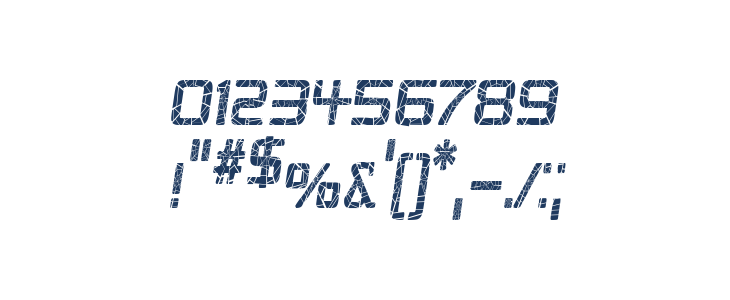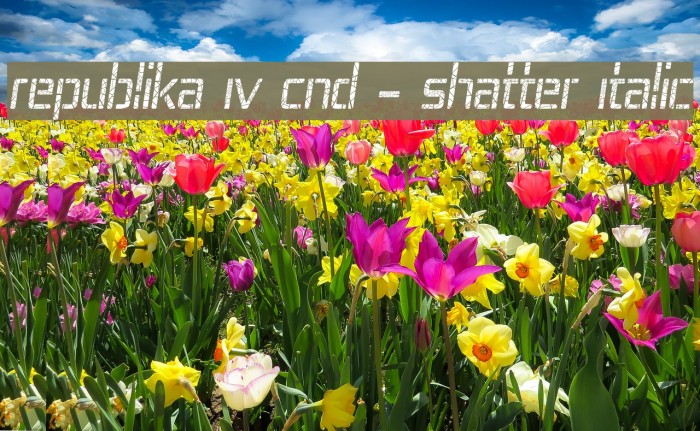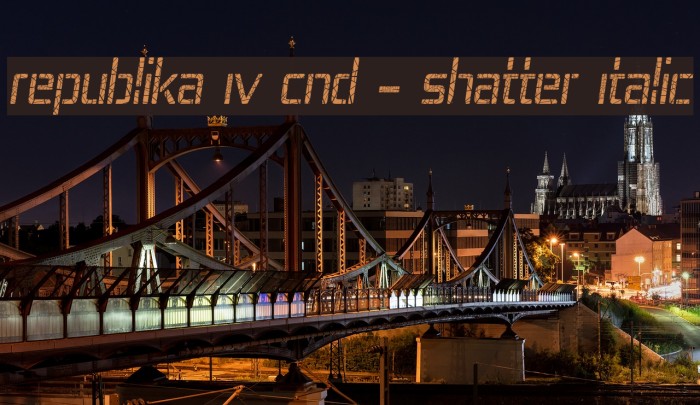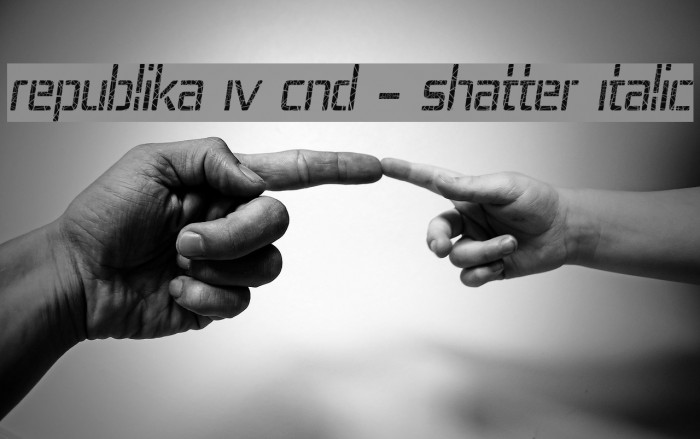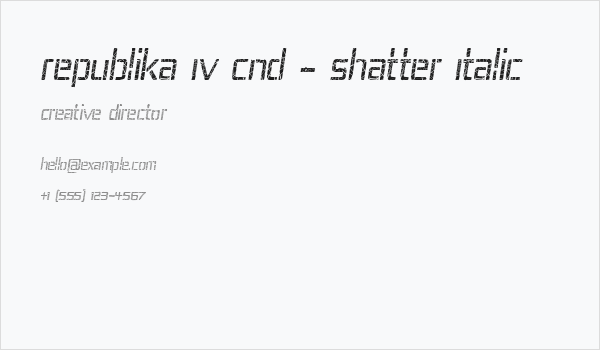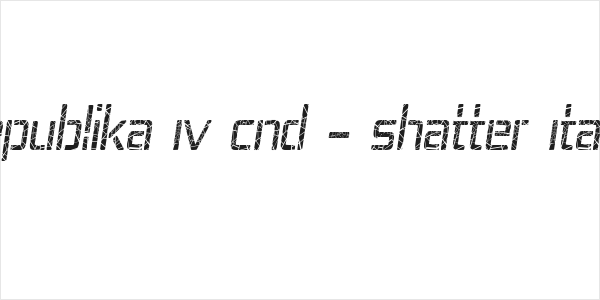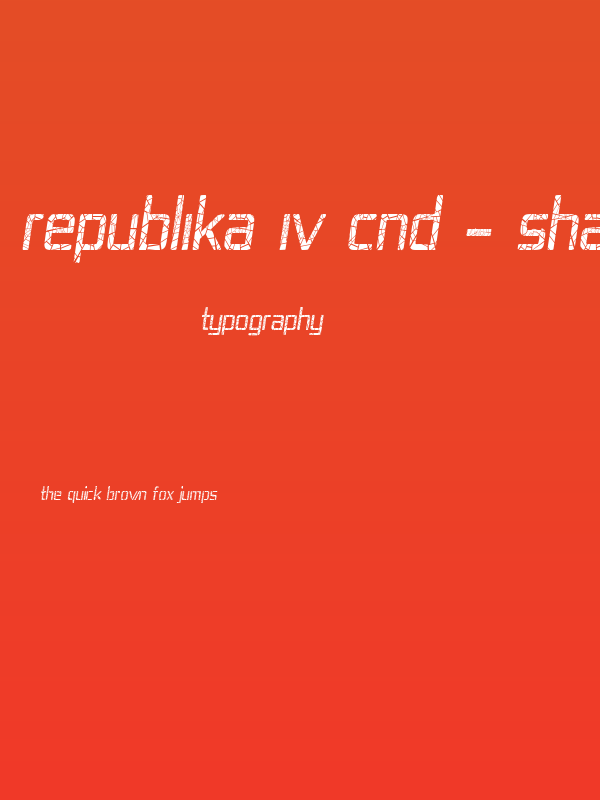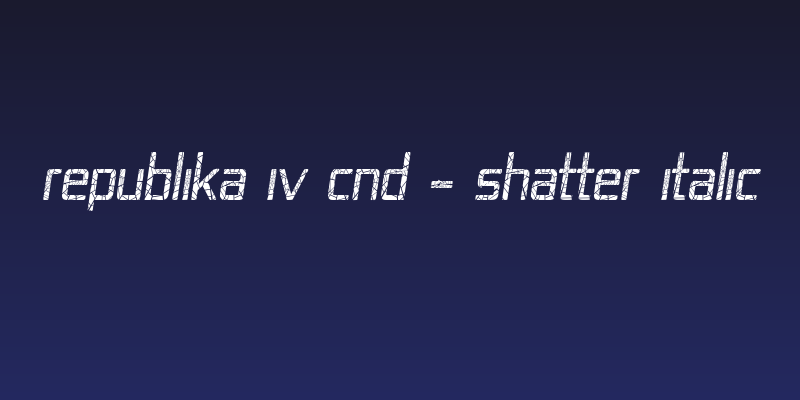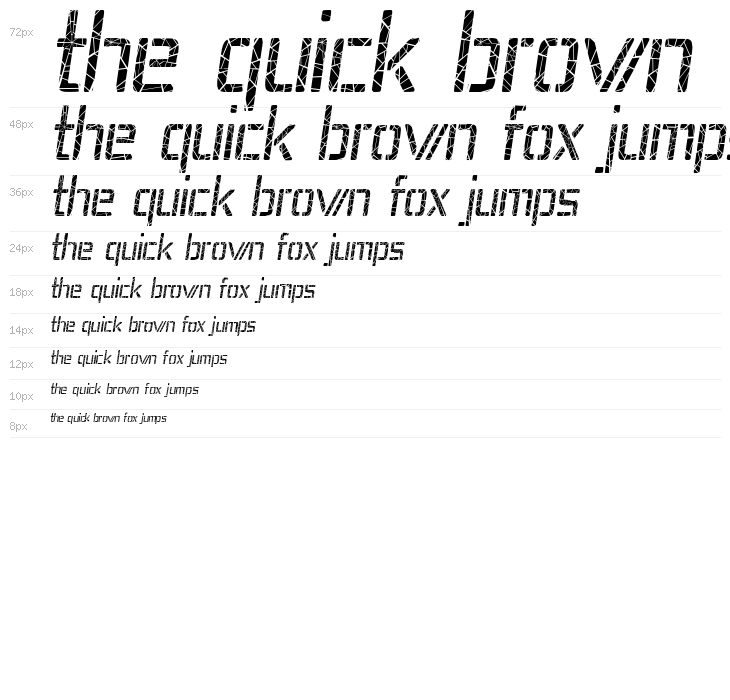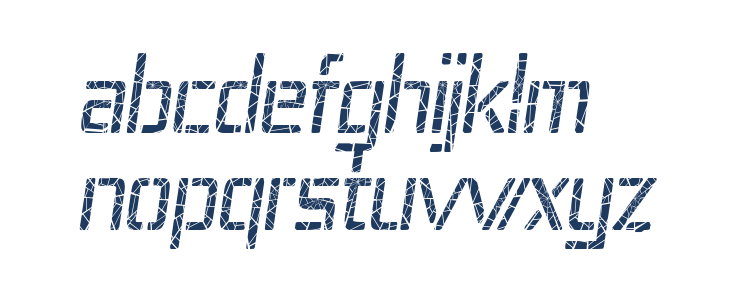
Republika IV Cnd - Shatter Italic Font
Republika IV Cnd - Shatter Italic Description
This font features a unique shattered effect, giving each character a fragmented and dynamic appearance. The design is italicized, adding a sense of motion and fluidity. The characters are bold and condensed, with a modern and edgy style that stands out. The shattered pattern within each letter creates a high-contrast look, making it ideal for attention-grabbing designs. The font includes a full set of uppercase and lowercase letters, numbers, and a variety of special characters, all maintaining the distinctive shattered aesthetic.